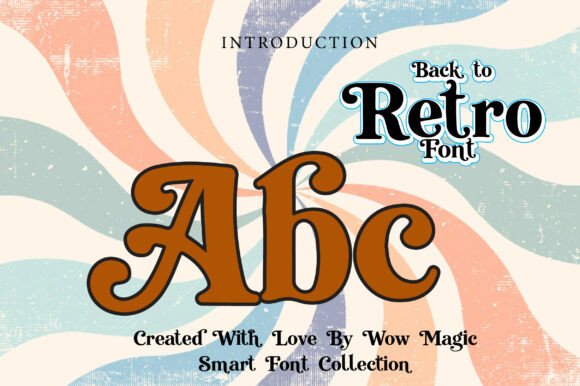
Timeless Charm: The Allure of Back to Retro Font
Remember the thrill of digging through your grandparents’ attic, uncovering old trunks filled with forgotten treasures? It’s a moment that sparks imagination and transports you to a bygone era. For designers, that same feeling can be captured with the perfect font – one that exudes nostalgia and elegance. That’s where Back to Retro Font comes in, a charming vintage display typeface inspired by classic retro signage, nostalgic packaging, and old-school editorial design.
Back to Retro Font is more than just a font – it’s a key to unlocking a timeless, vintage mood that adds personality to any project. Whether you’re designing a retro brand identity, a bold poster, or social media graphics, this versatile typeface brings a classic throwback feel that’s both clean and usable. For designers seeking to infuse their work with a touch of nostalgia, Back to Retro Font is an invaluable addition to their creative toolkit.
Key Features of Back to Retro Font
- Font Family: Back to Retro Font is a unique, hand-drawn font family that combines elements of classic and modern design.
- Font Size: The font family includes 6 weights, ranging from Thin to Extra Bold, allowing for a wide range of design applications.
- Unique Characteristics: Features a distinctive blend of retro and modern elements, including subtle texture and subtle color variations.
Back to Retro Font Review
I’ve had the chance to work with “Back to Retro Font” and here’s my honest take on it.
- Unique aesthetic: The font has a distinct retro vibe that’s perfect for projects that need a nostalgic touch.
- High-resolution images: The font files are crisp and clear, making them suitable for both digital and print use.
- Customization options: The font offers a range of styles and weights, giving you the flexibility to experiment with different looks.
- Limited language support: The font may not be optimized for languages that require complex character sets, which could lead to display issues.
- Not ideal for body text: Due to its ornate design, “Back to Retro Font” might be more suitable for headlines and titles rather than large blocks of body text.
- May require adjustments: Depending on your design preferences, you might need to tweak the font’s settings to achieve the desired look.
Overall, “Back to Retro Font” is a solid choice for projects that require a retro aesthetic. While it has some limitations, its unique charm and high-quality images make it a great addition to any designer’s toolkit.
Tips for Getting the Most Out of the Back to Retro Font
Use the Back to Retro Font for:
- Retro-themed designs, such as vintage posters or advertisements.
- Playful and whimsical designs, such as children’s books or party invitations.
- Creating a nostalgic or vintage feel in your designs.
Remember to pair the Back to Retro Font with complementary colors and design elements to create a cohesive look.
Alternatives to “Back to Retro Font” for Designers
Great Vibes Font is a fun, cursive script font that evokes a sense of nostalgia and playfulness. It’s perfect for designs that require a whimsical touch, such as children’s books, advertisements, or social media graphics. Compared to Back to Retro Font, Great Vibes Font has a more fluid and organic feel, making it ideal for designs that need a bit of character.
Pacifico Font is a beautiful, elegant script font that’s reminiscent of a bygone era. It’s great for designs that require a touch of sophistication and luxury, such as wedding invitations, luxury brands, or high-end advertising. Unlike Back to Retro Font, Pacifico Font has a more refined and polished feel, making it perfect for designs that need a bit of glamour.